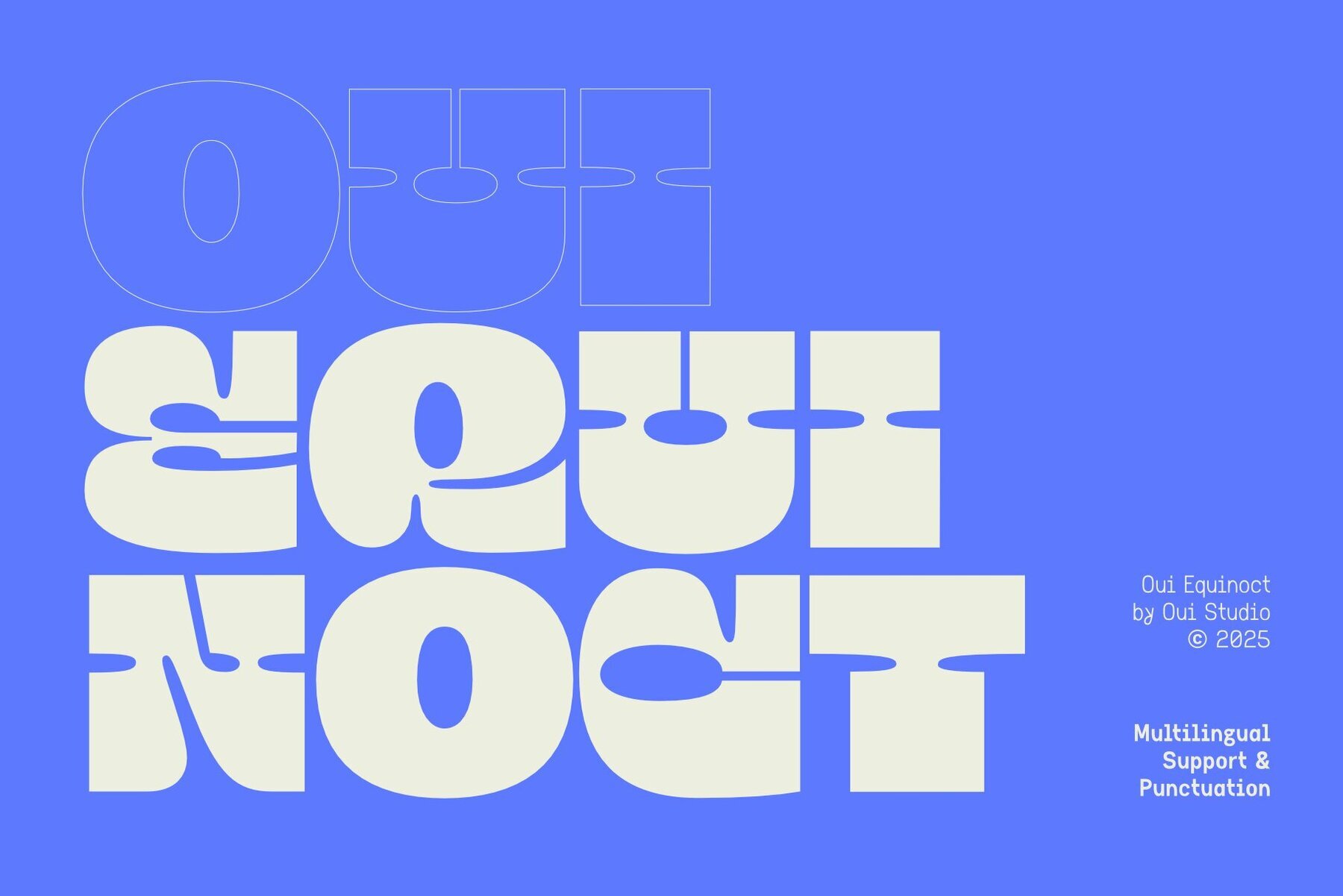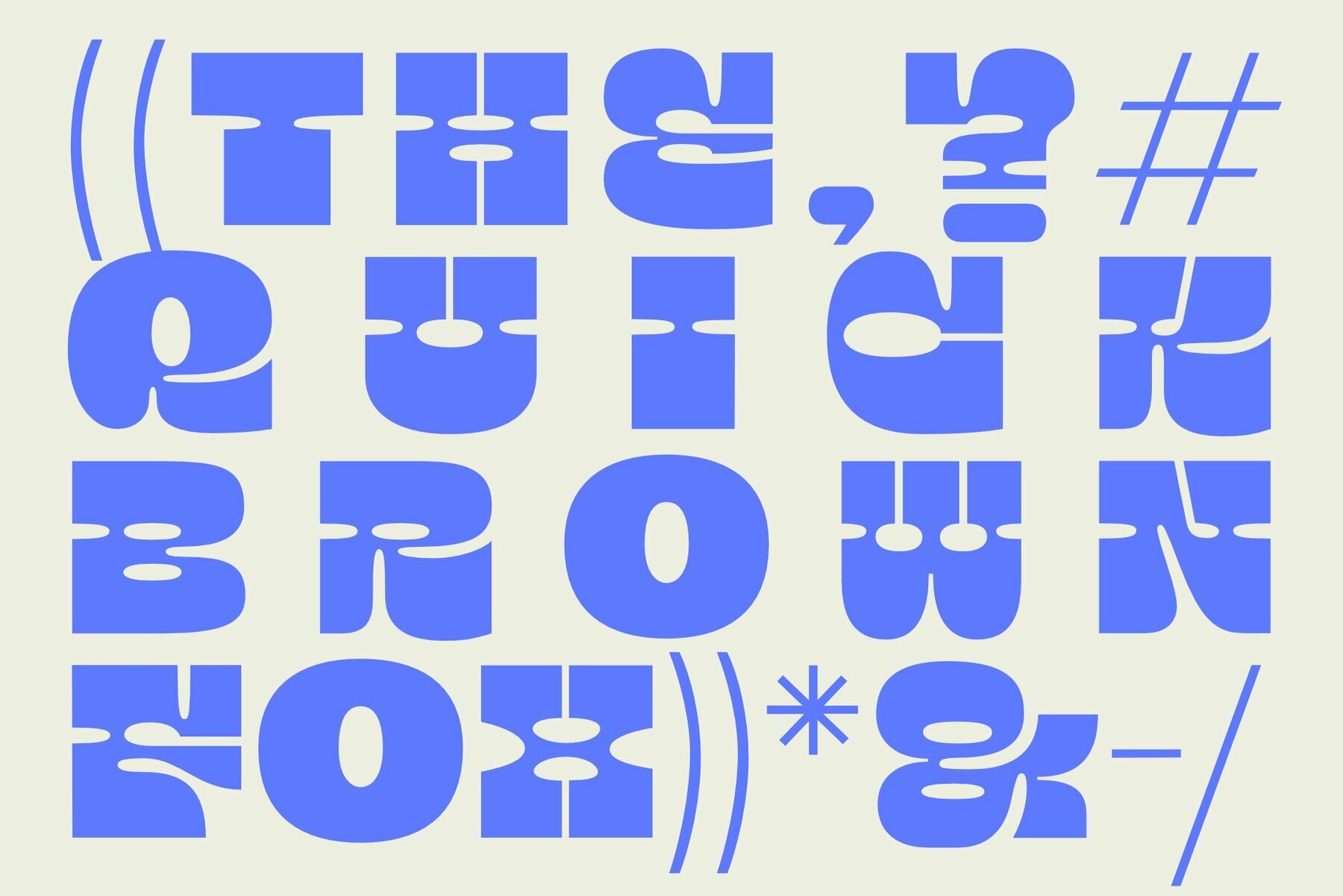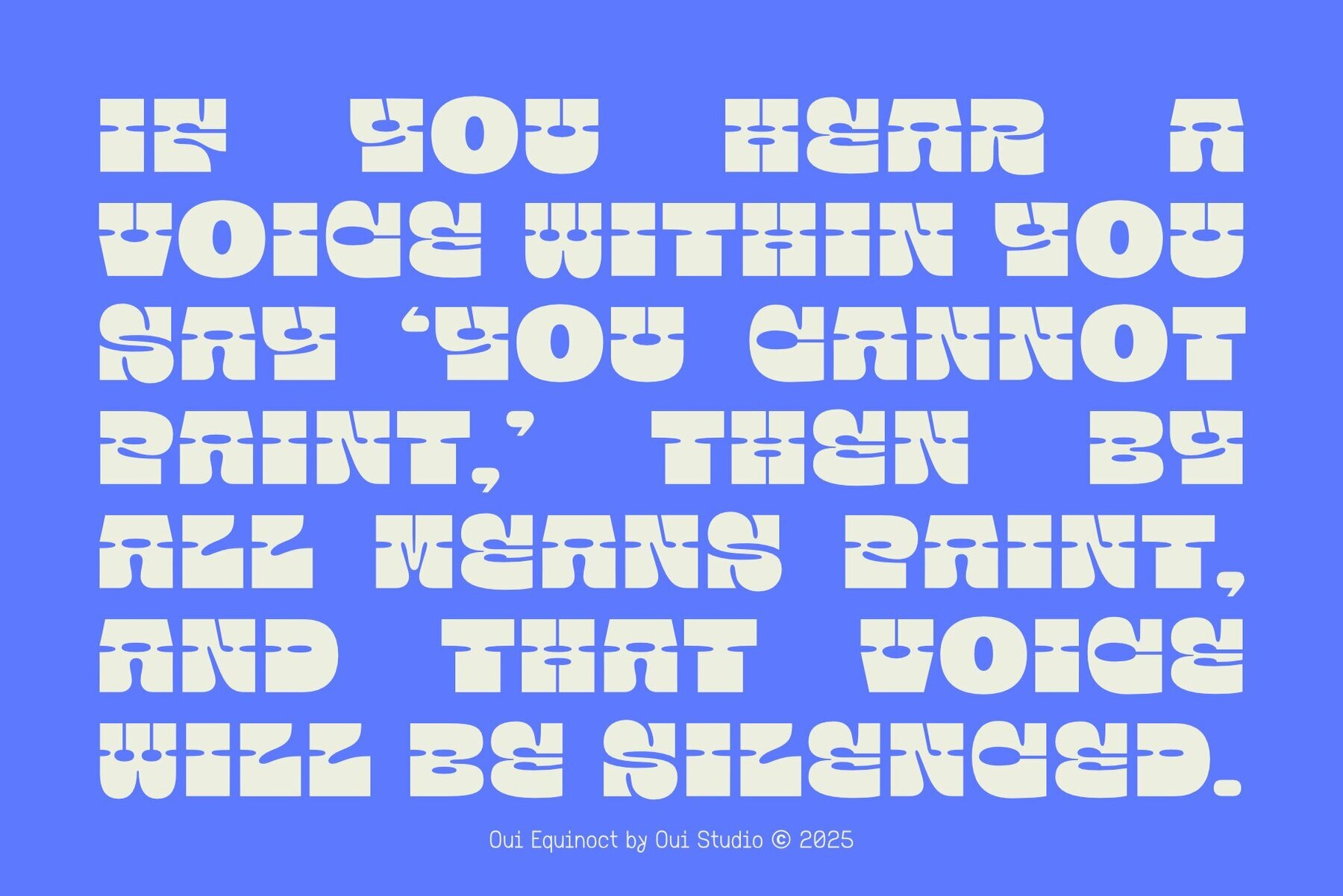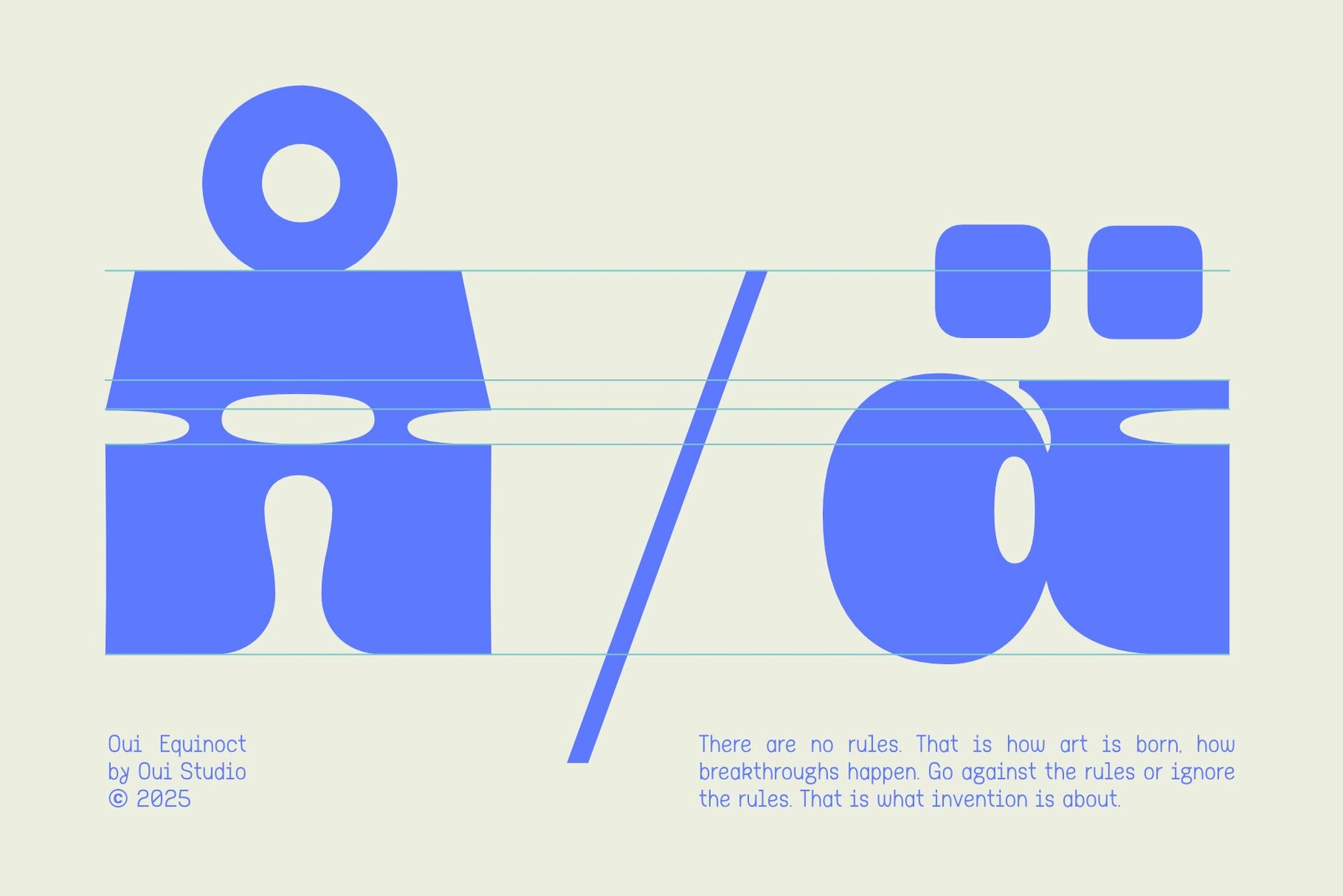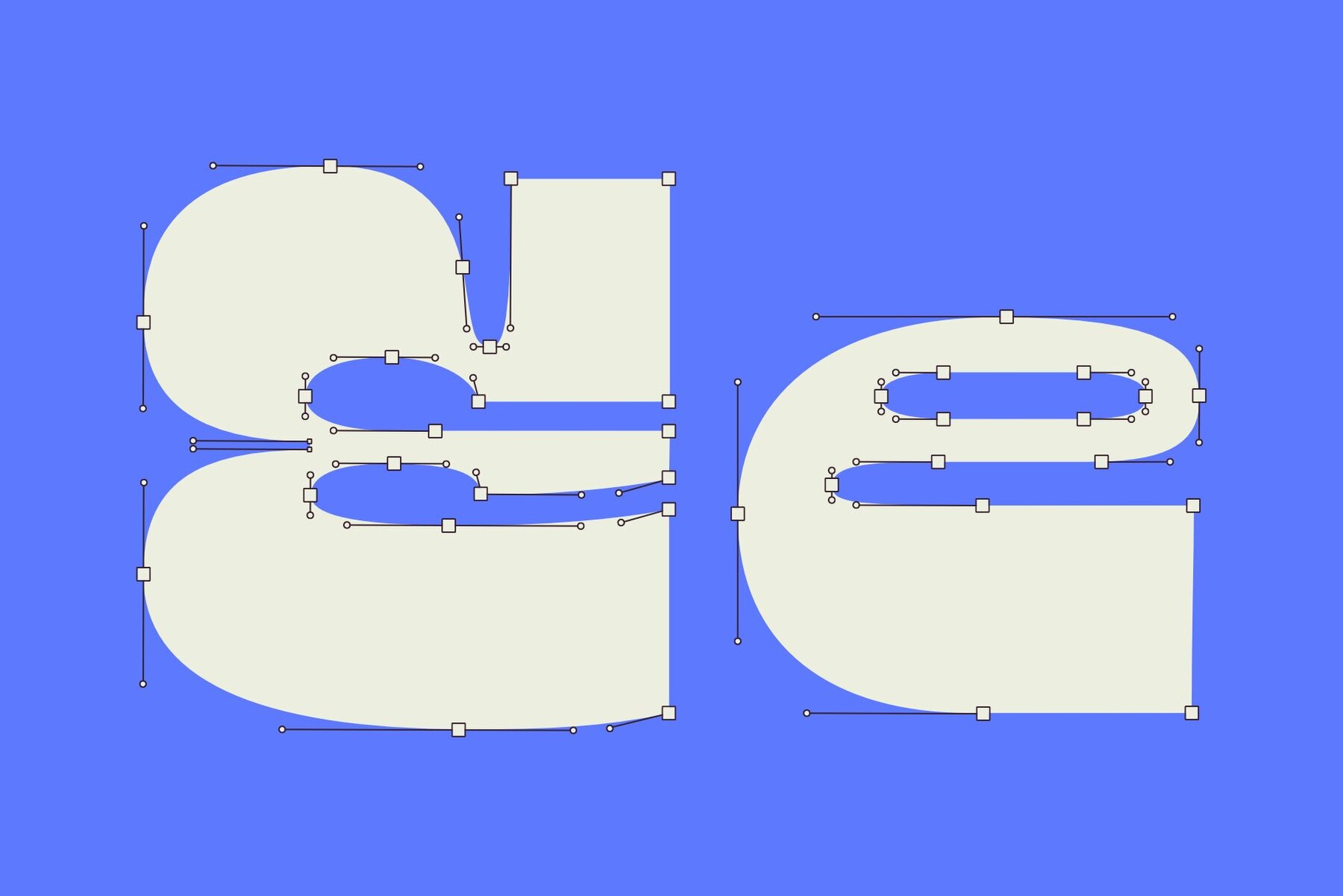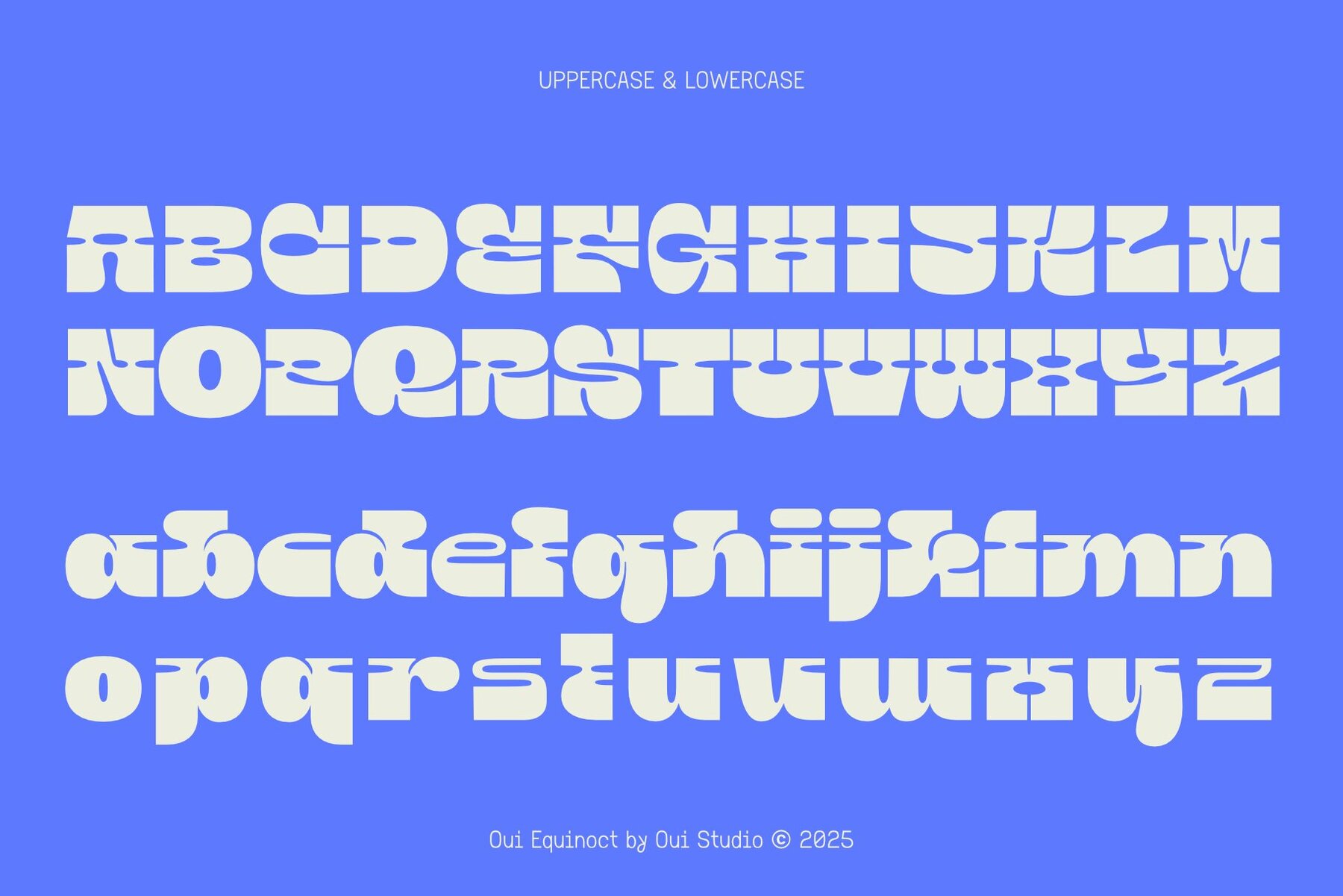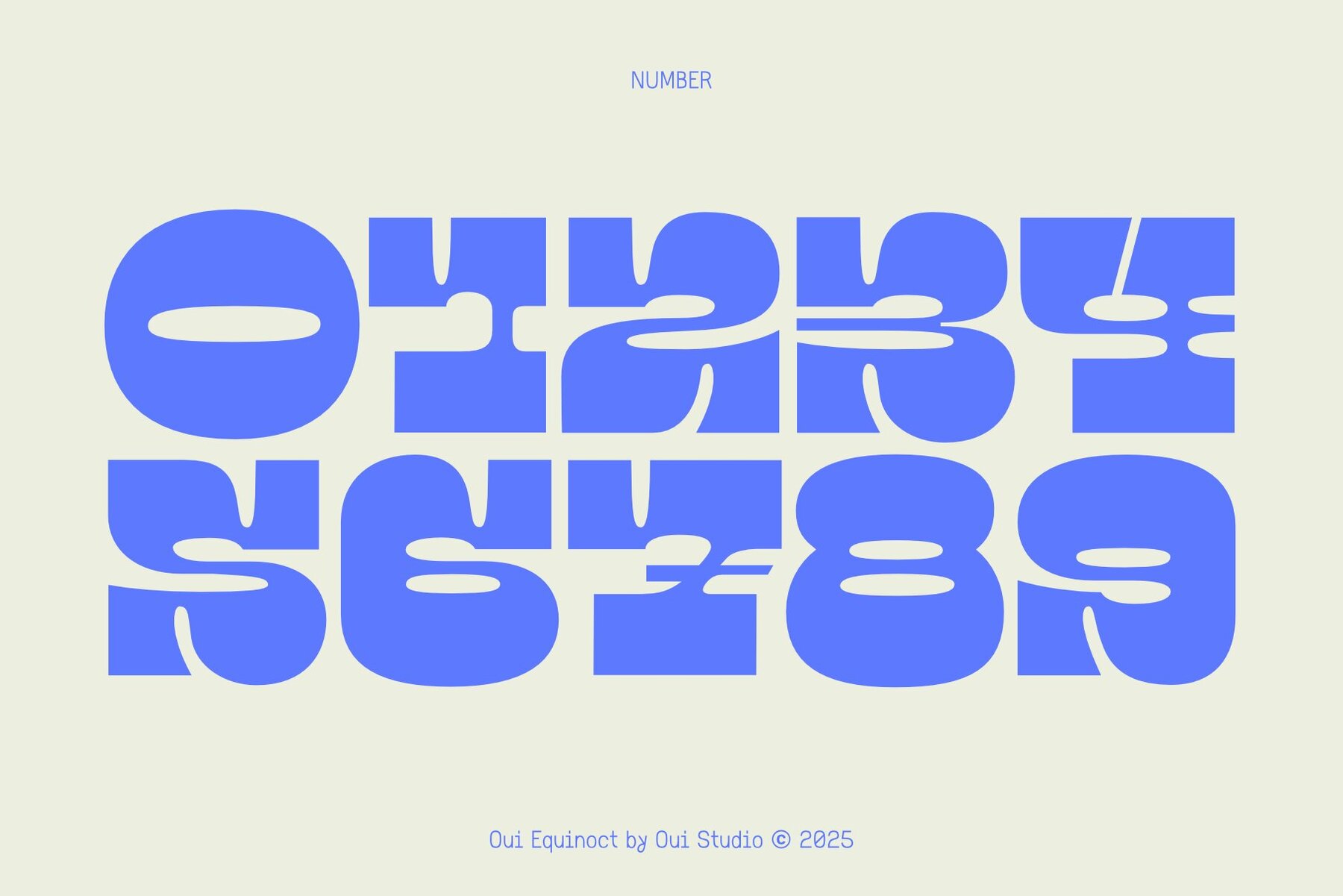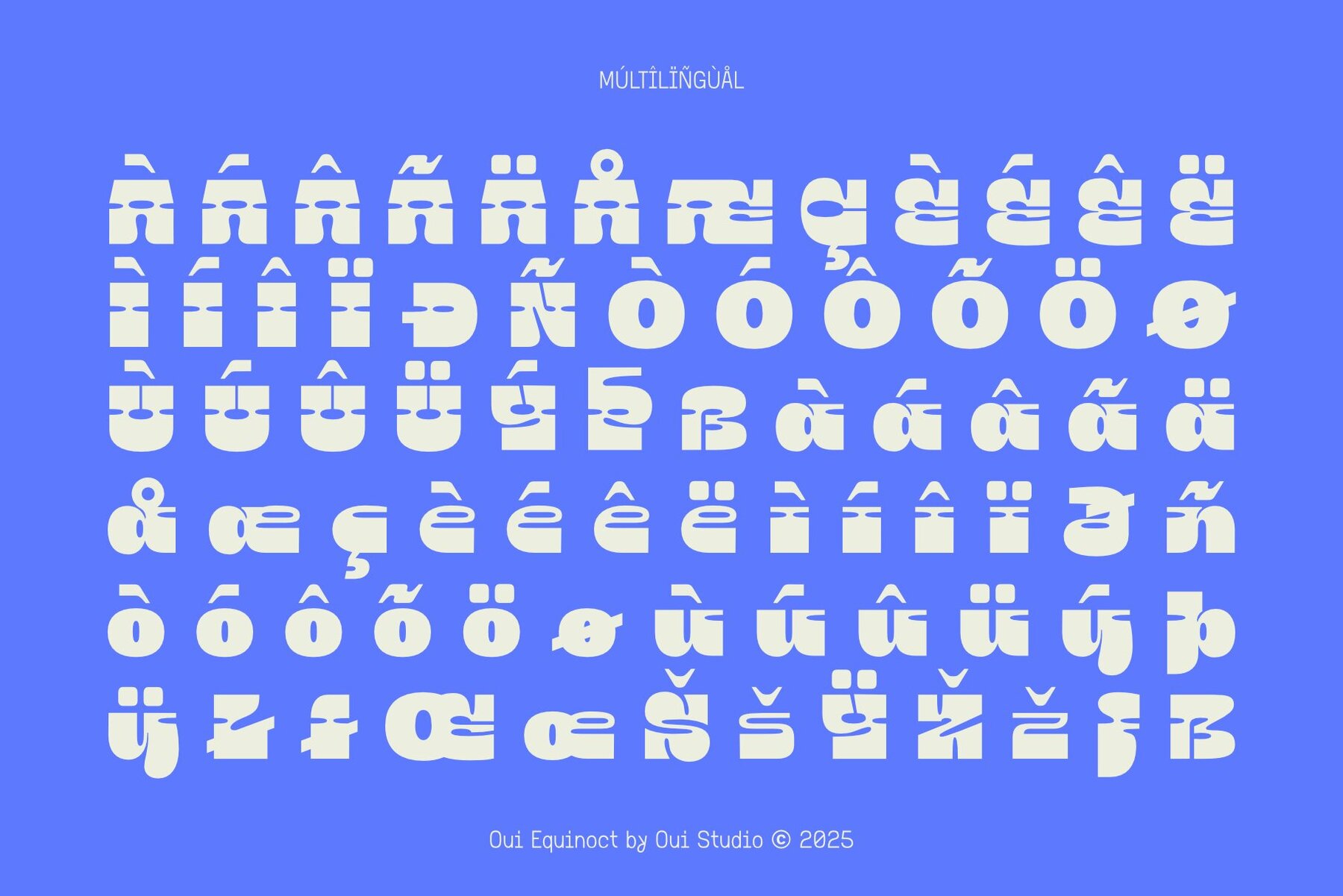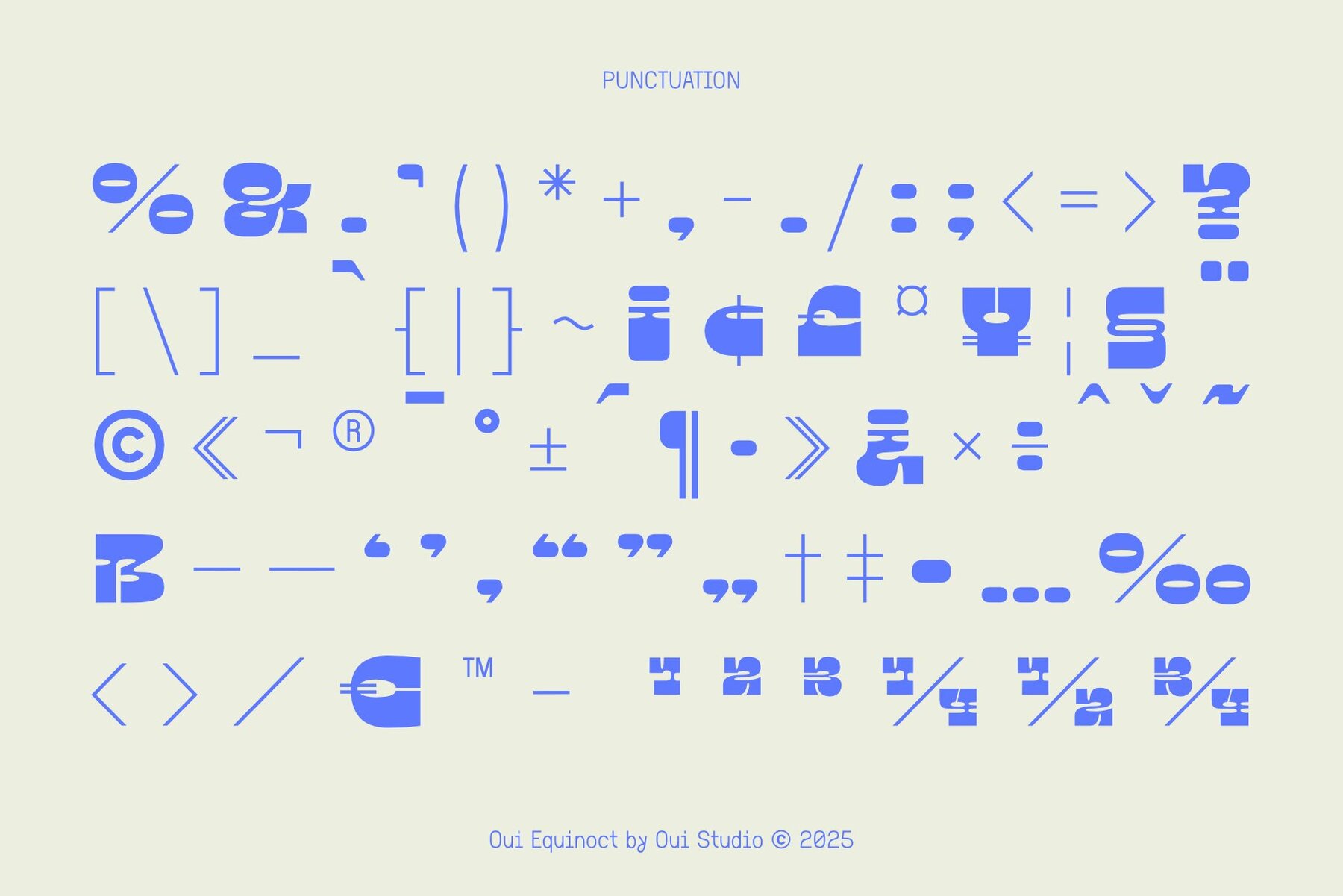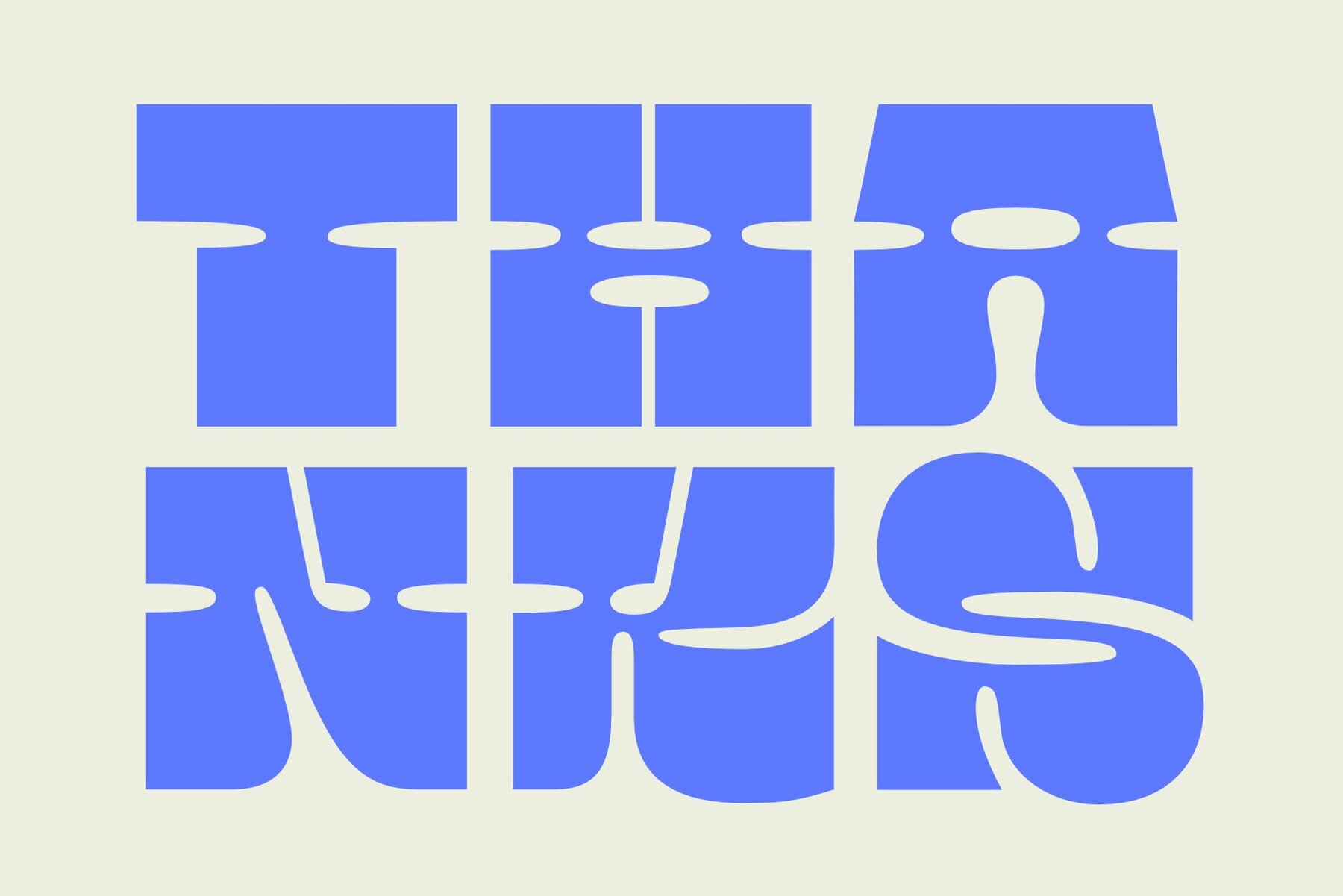
Oui Equinoct Font
expand_font Oui Equinoct Font Bold experimental display font for graphic designers seeking a futuristic aesthetic with vintage sci-fi vibes. Ideal for album covers, editorial... SKU T31144 Slab Serif,Decorative,Experimental,Vintage,Retro,Christmas,Groovy,Unique,Symmetry,Slab,High Impact,Blocky,Western,Cowboy,Ultra Black,Eyecatching,Headline,Statement Explore Exceptional Fonts for Digital and Traditional Media Fontpath offers a large variety of fonts for every designer, all at affordable prices and in multiple formats. Browse our best in class fonts today for all your creative needs, you can find everything you need right here at our site! Fonts,sans,sans serif,retro,script,decorative,title,FontPath 20140312040223 Fontpath offers 200,000+ of the most professional fonts found online, start downloading today! Real-Time Font Discovery at Fontpath